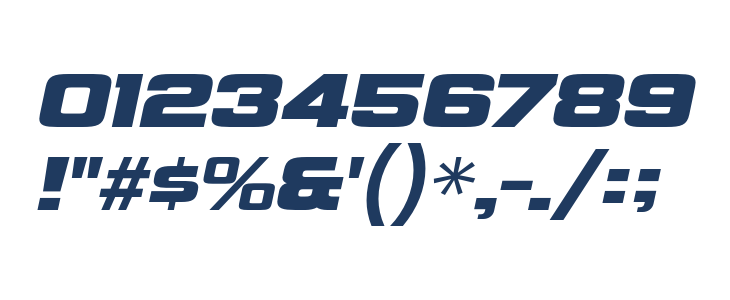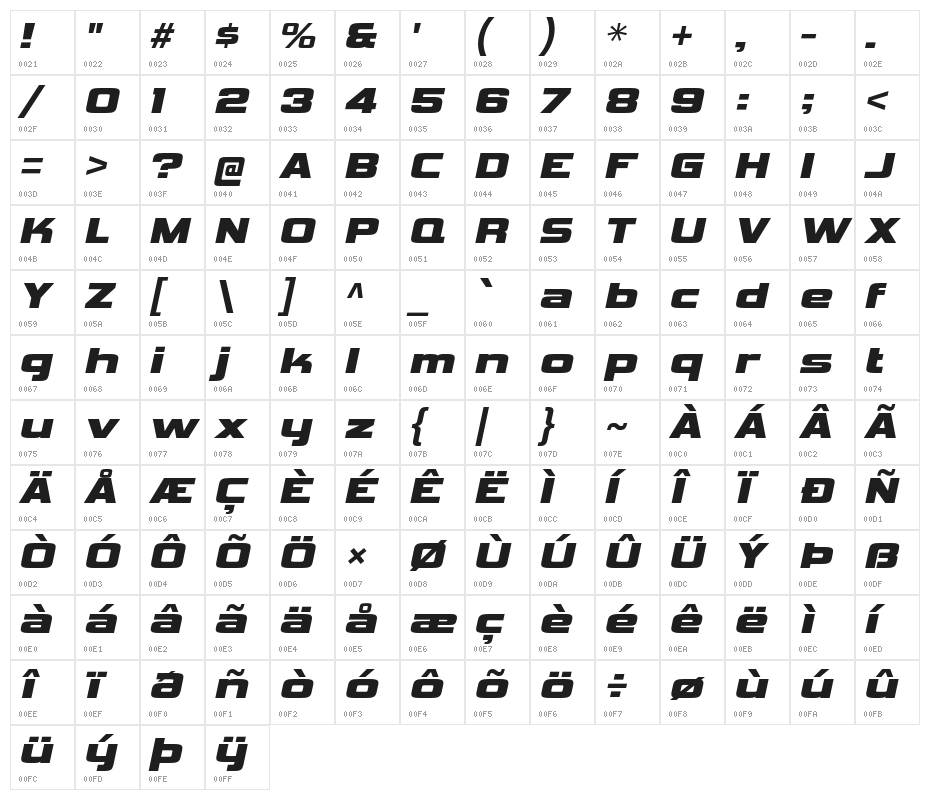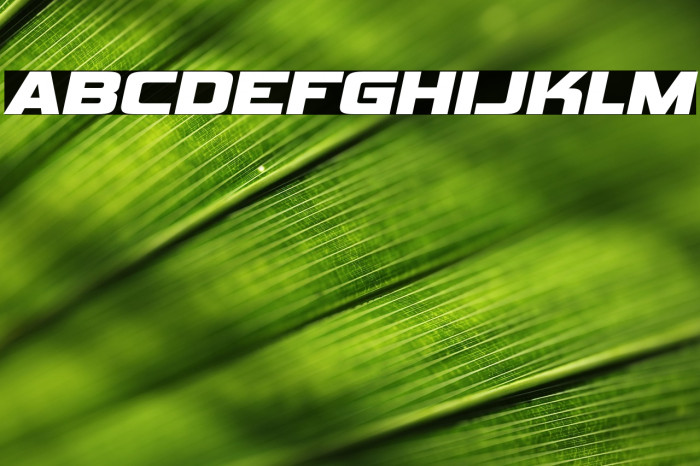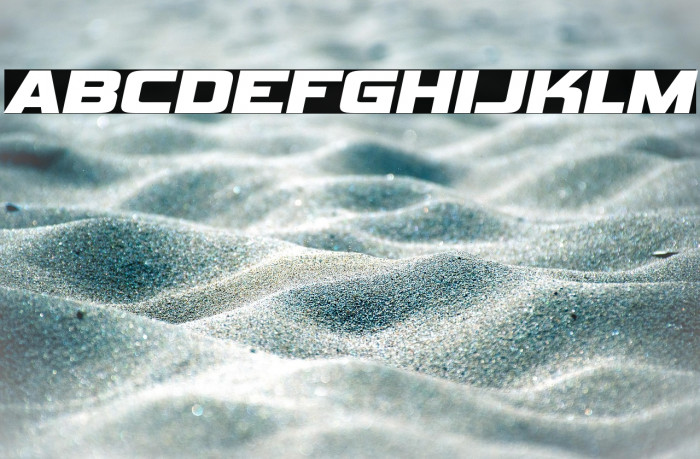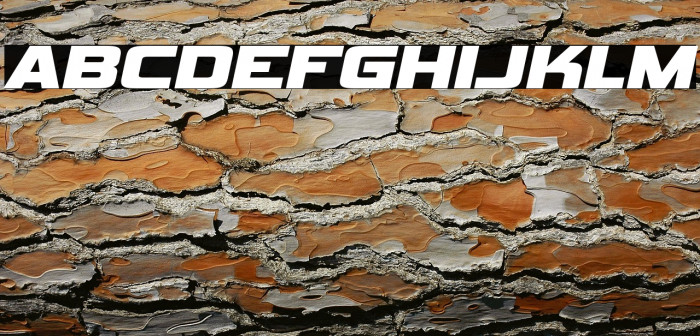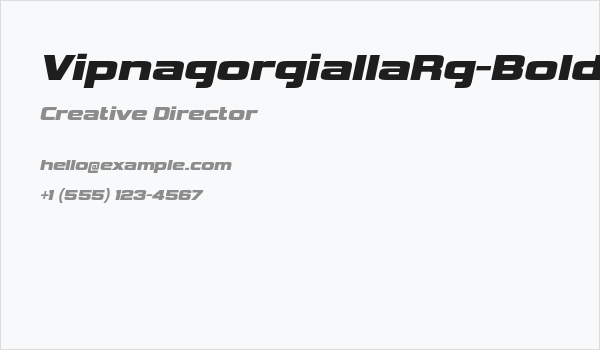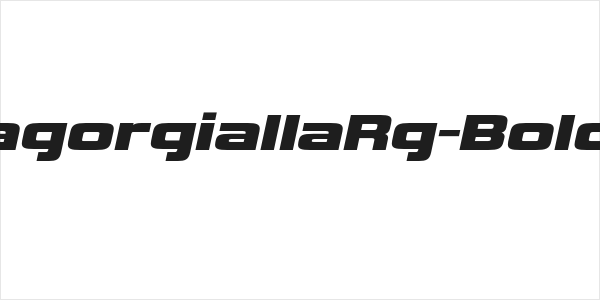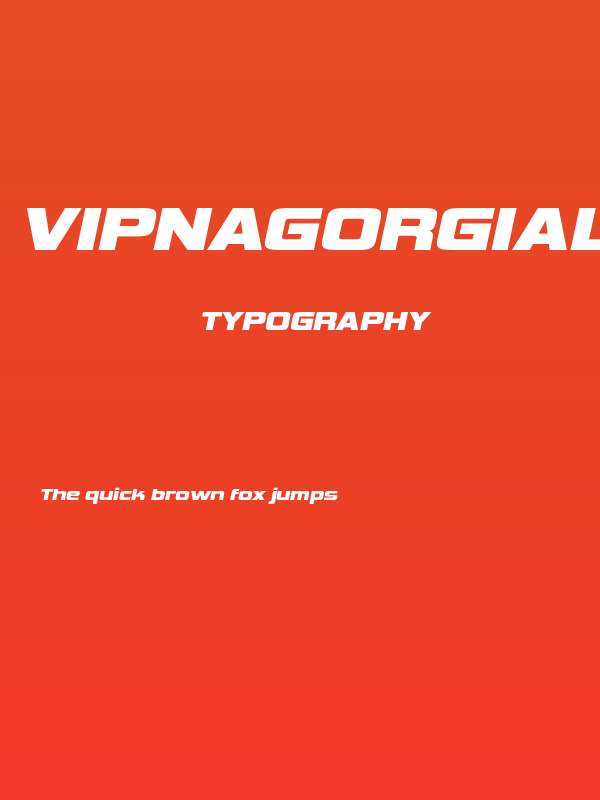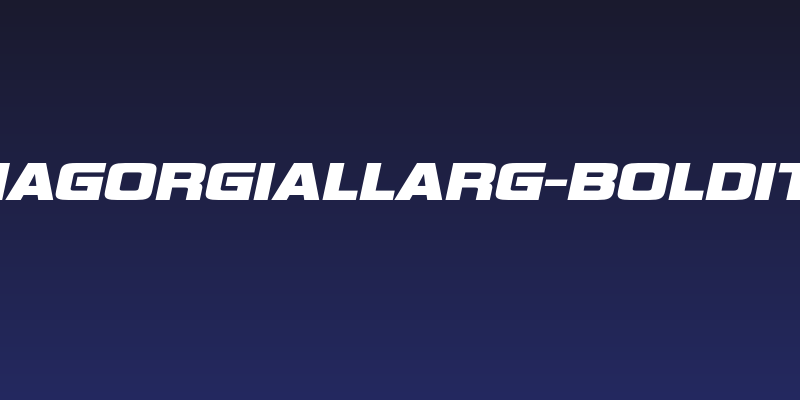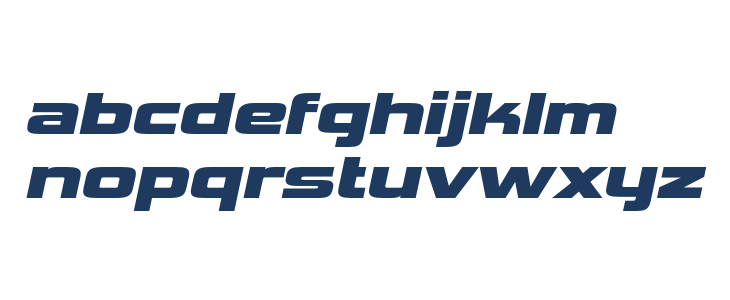
VipnagorgiallaRg-BoldItalic Font
VipnagorgiallaRg-BoldItalic Description
This font features a bold and italicized style with a modern and dynamic appearance. The characters are slightly slanted, giving a sense of motion and energy. The uppercase letters are strong and assertive, while the lowercase letters maintain a consistent flow. The numerals are clear and bold, ensuring readability. Special characters are well-defined, adding to the font's versatility. The overall design is sleek and contemporary, suitable for various creative applications.
| Proposed Projects | Ideal for sports branding, dynamic posters, modern advertising, and tech-related designs. |